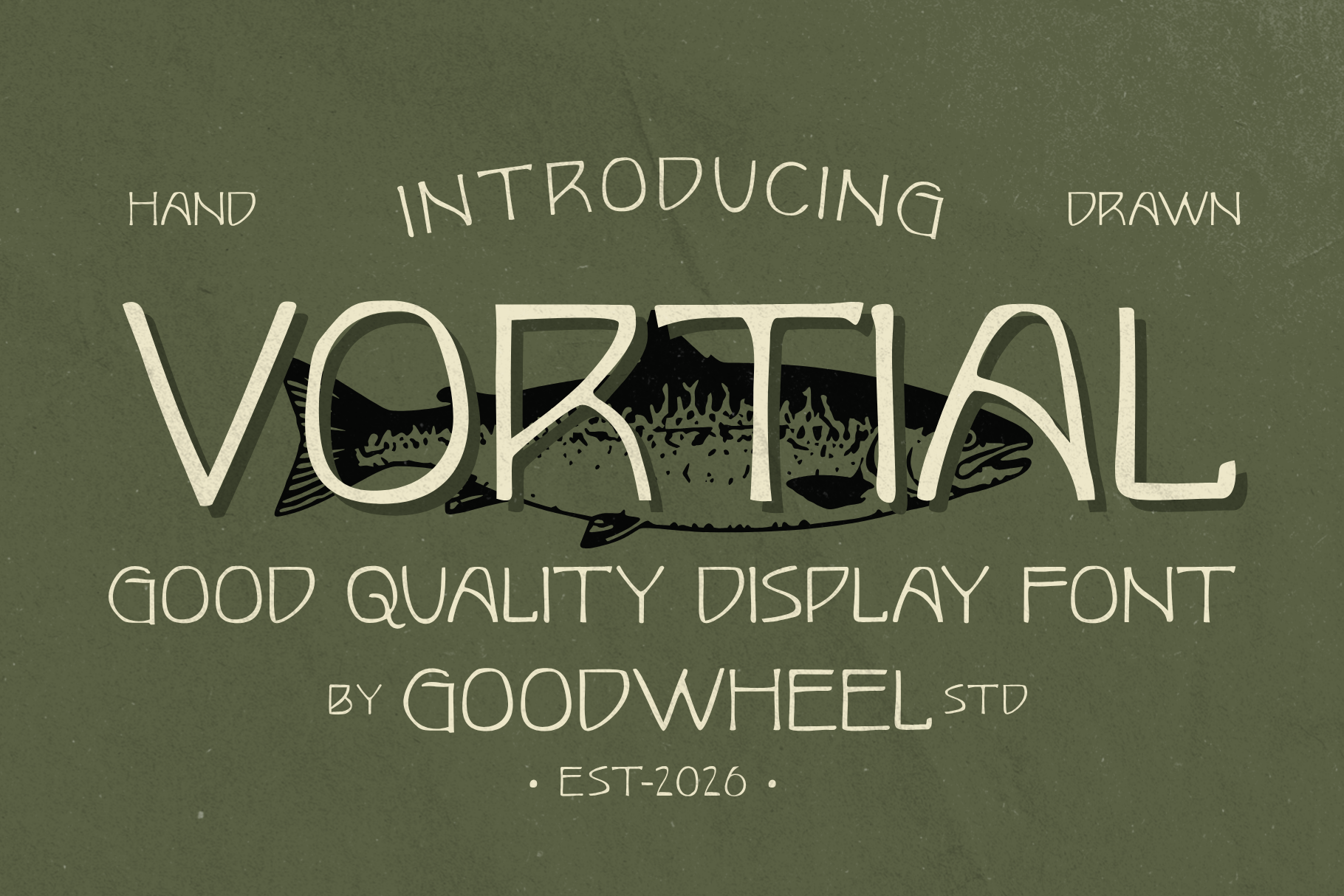
Vortial | Handdrawn Typeface
Vortial is a clean and playful handcrafted display font inspired by minimalist signage, organic lettering, and mid-century design. Its thin strokes, rounded curves, and slightly irregular construction create a warm, approachable personality that feels both vintage and contemporary. Perfect for branding, packaging, café menus, posters, logos, stationery, book covers, social media, and editorial headlines, Vortial adds a charming handcrafted touch without sacrificing readability. The font includes uppercase, lowercase, numerals, punctuation, symbols, and multilingual support, making it suitable for a wide range of creative projects. Bring authentic character, elegance, and handcrafted simplicity to every design with Vortial.